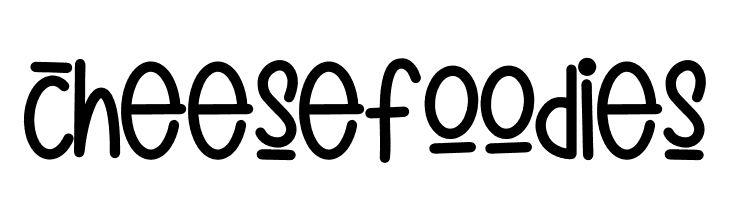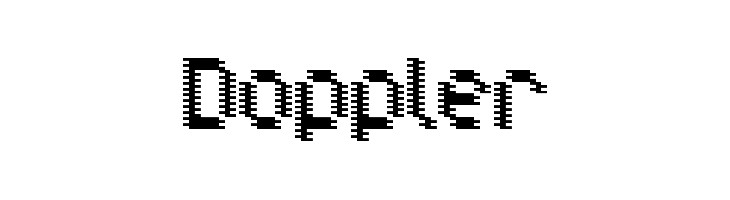
A pixelated, retro-style font with a bold, digital appearance.
A playful, handwritten script font with flowing, interconnected letters.
A bold, geometric font with a modern and impactful design.
A bold, condensed sans-serif font with a strong, modern appearance.
A lively handwritten font with fluid strokes and playful elegance.
A playful font with cat face motifs on each character, perfect for fun and creative projects.
A bold, italicized digital-style font with segmented, geometric characters.
A playful, hand-drawn font with rounded, bold characters and a whimsical style.